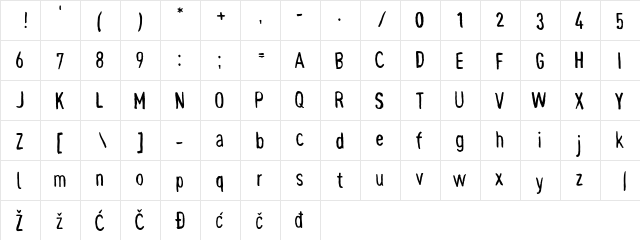
Pynkei_DIN Regular
| Foundry | Marko Maljkovi |
| Designer | Marko Maljkovi |
Design Context for Pynkei_DIN Typeface
Pynkei_DIN offers clean, dependable letterforms without strong stylistic allegiance, making it a practical choice for designers who need flexibility.